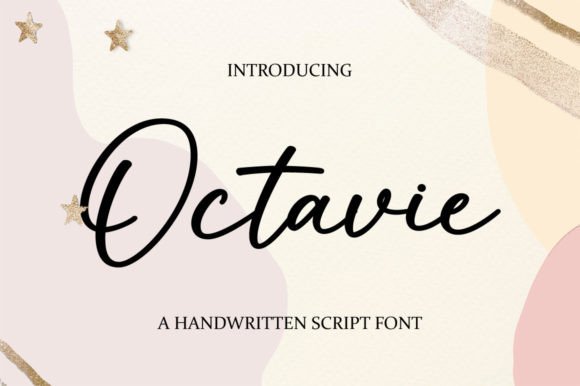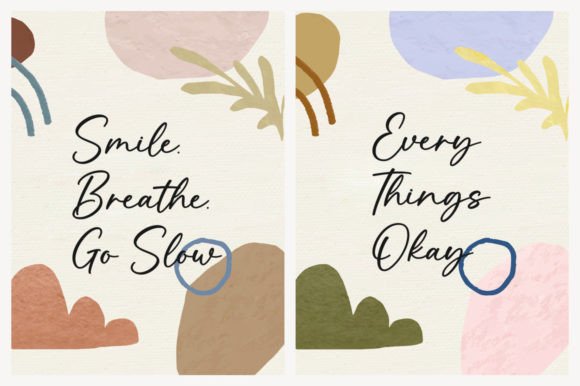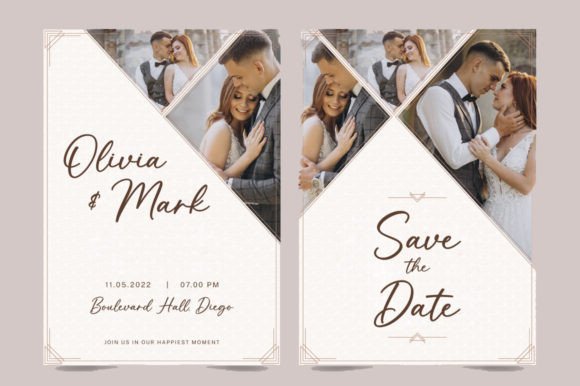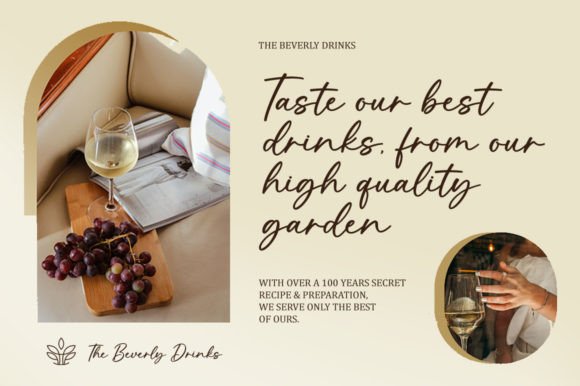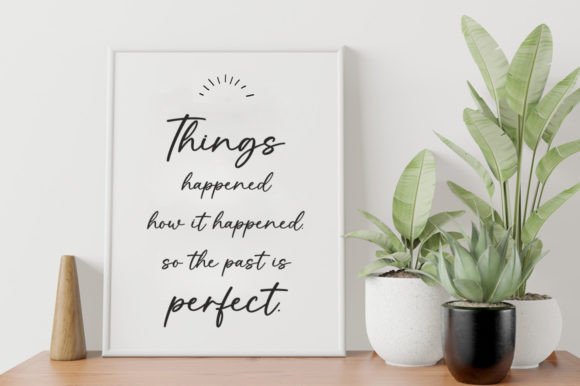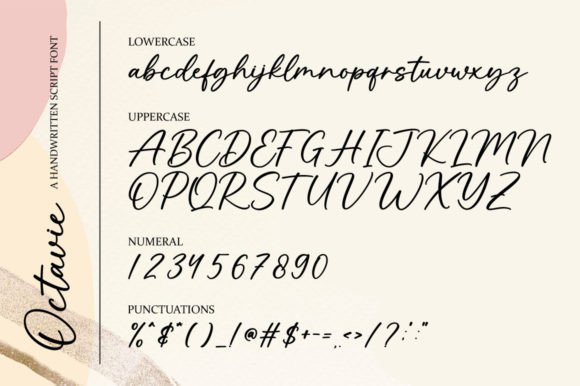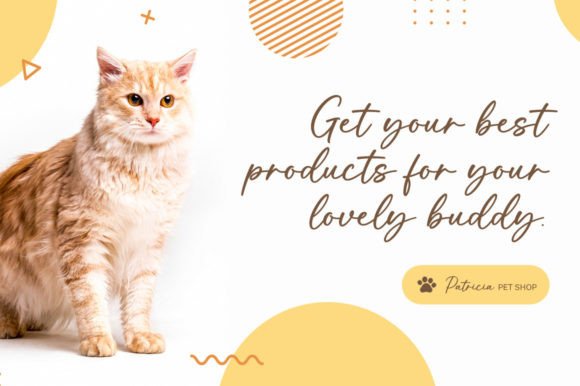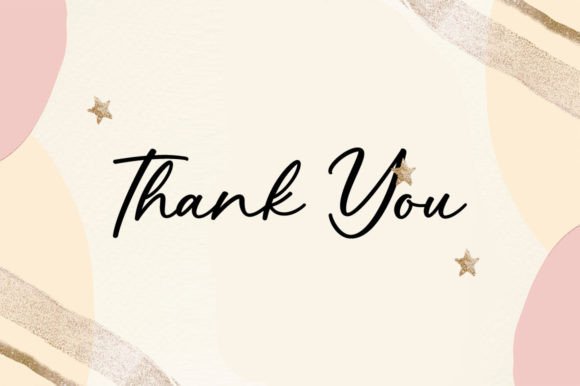
Octavie Font
About Octavie Font
Octavie is a delicate, elegant, and flowing handwritten font. It has beautiful and well-balanced characters and as a result, it matches a wide pool of designs.